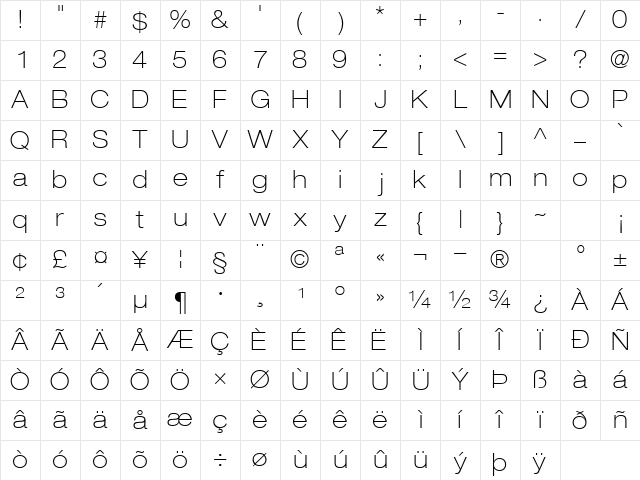
Complete ContextRepriseThinExpSSK Regular glyph index. Displaying only characters natively supported by ContextRepriseThinExpSSK Regular font.
ContextRepriseThinExpSSK is a composed and adaptable typeface that performs quietly and consistently across a wide range of design contexts. Its slender proportions lend an understated elegance to any composition.